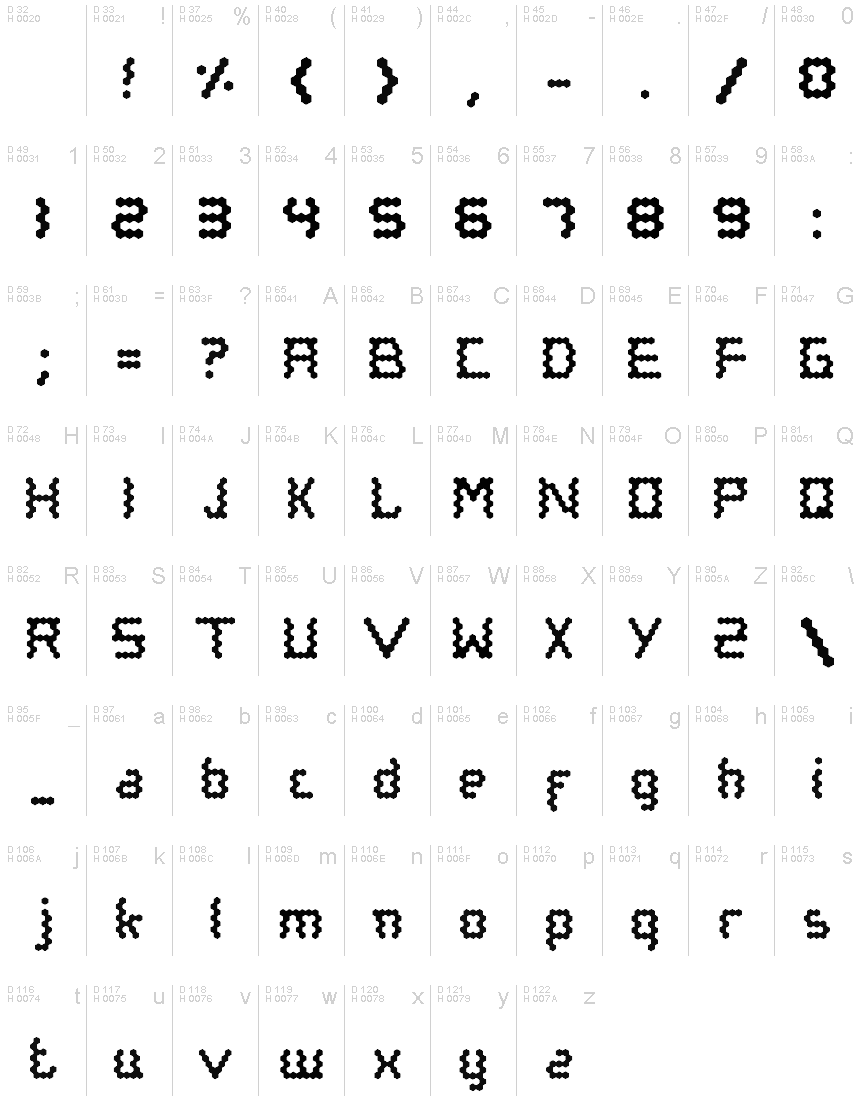
maxwox font
Maxwox, the techno-inspired display font crafted by Nimbalagi Studio, exudes a captivating industrial charm. Its bold, geometric letterforms with their striking black-and-white contrast evoke a sense of modern, mechanical sophistication. The font's sharp edges and dynamic, overlapping curves lend it a bold, attention-grabbing presence, making it an ideal choice for eye-catching headlines, logos, and branding applications.
Maxwox's versatility shines through its ability to convey a futuristic, technology-driven aesthetic, making it a compelling option for digital design, product packaging, and multimedia projects that require a bold, contemporary typographic statement.